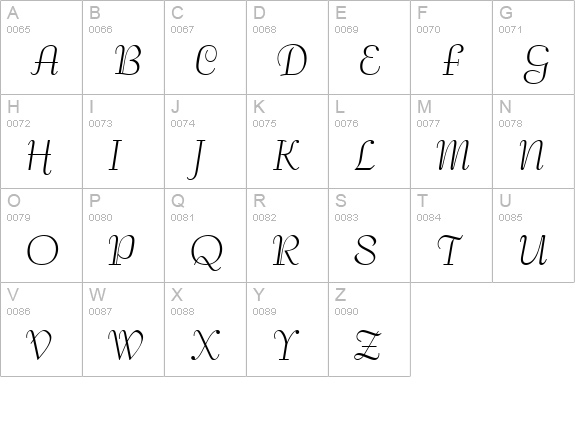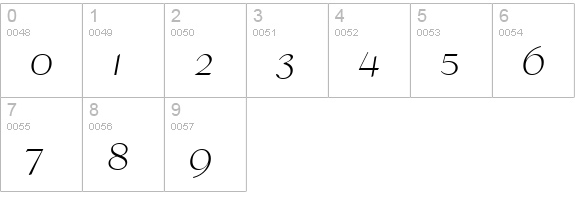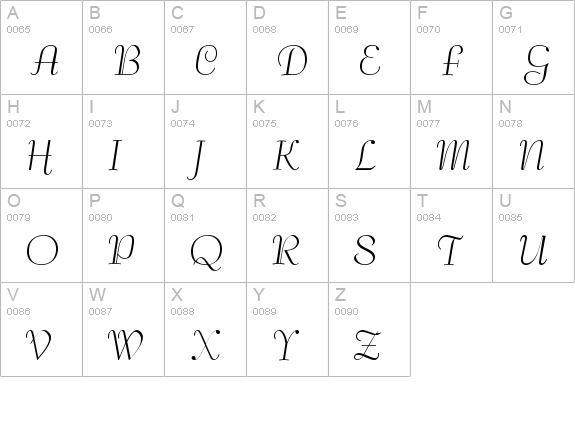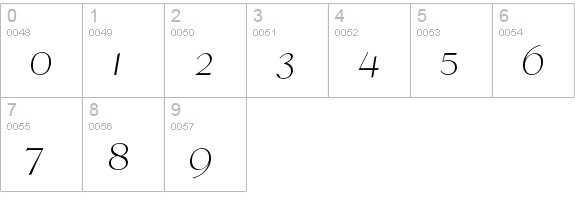
Carmine Tango font is a stylish and modern typeface that exudes elegance and sophistication. Its sleek lines and graceful curves make it perfect for a wide range of design projects, from branding to editorial layouts. With its bold yet refined aesthetic, Carmine Tango font is sure to make a statement and capture attention. What sets Carmine Tango font apart is that it is not only visually stunning, but it is also free to download. That's right, this premium quality font is available for free at FontsMarket.com. Whether you are a designer looking to add a touch of flair to your projects or a creative individual in need of a versatile typeface, Carmine Tango font is the perfect choice. Don't miss out on the opportunity to enhance your designs with this beautiful and timeless font. Download Carmine Tango font today and let your creativity shine.